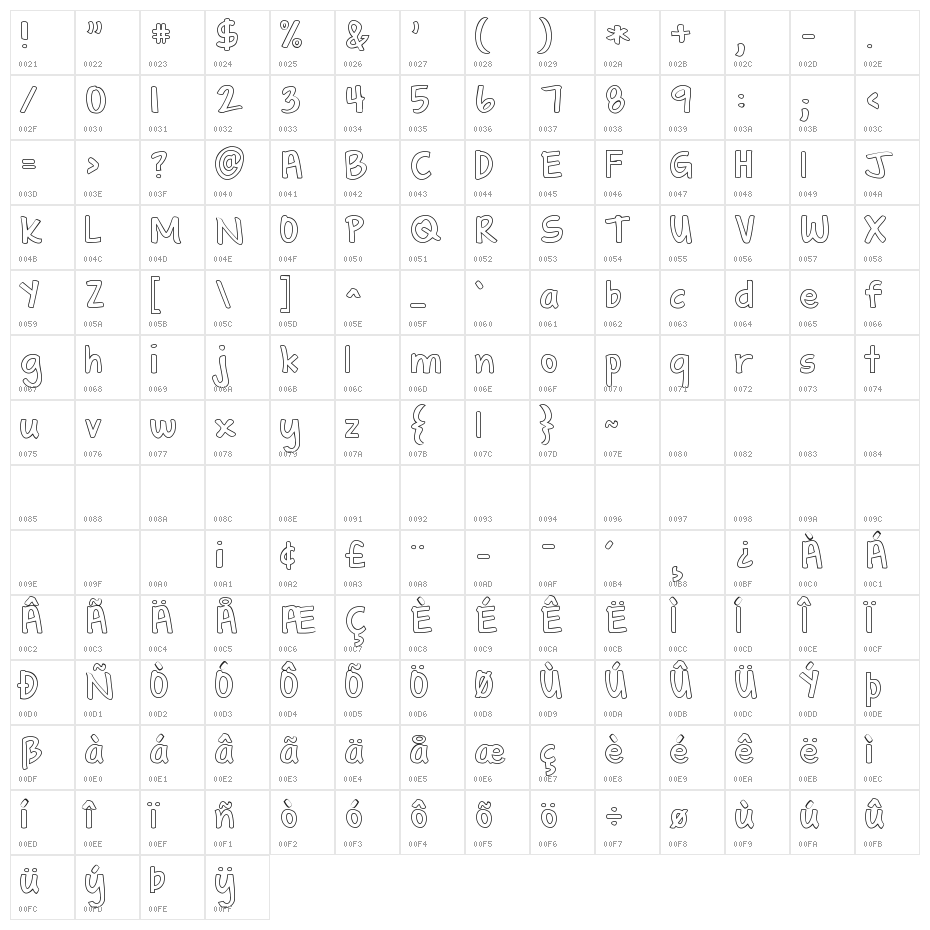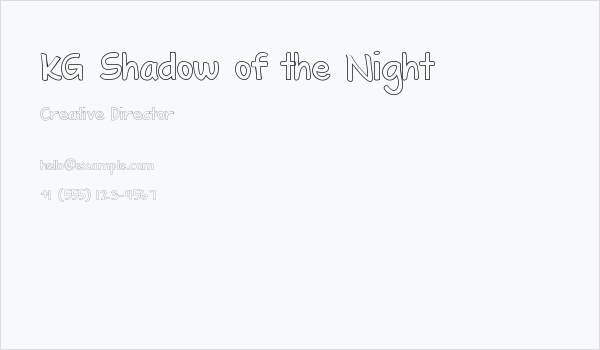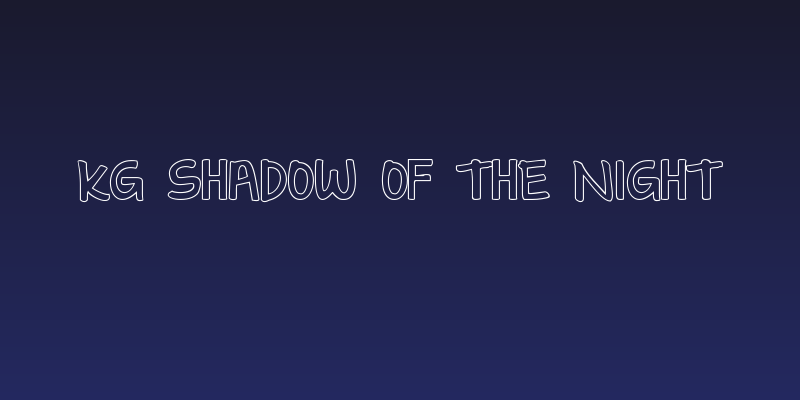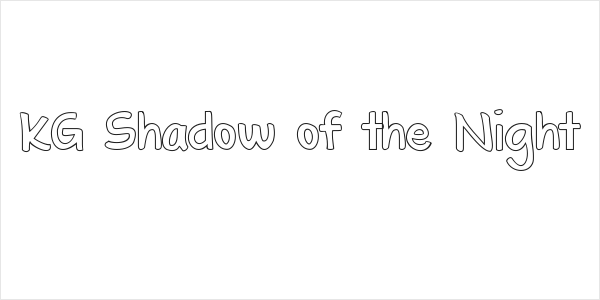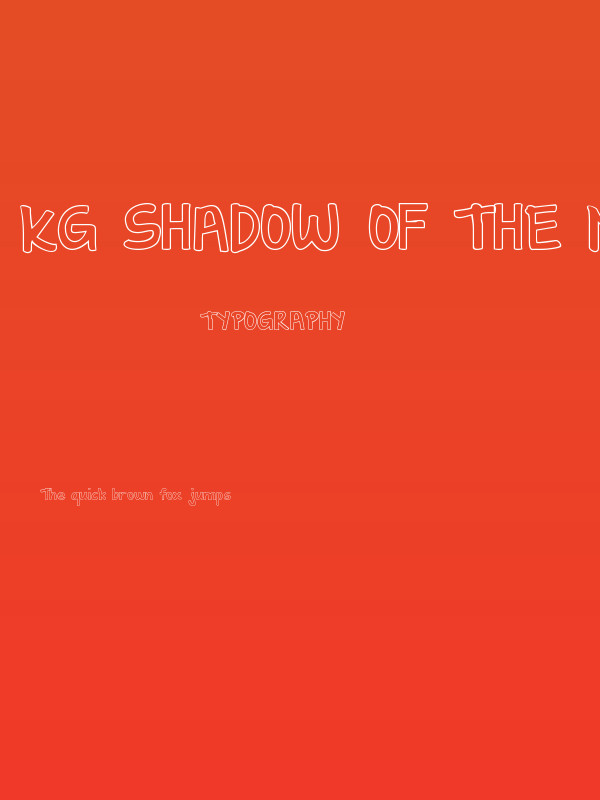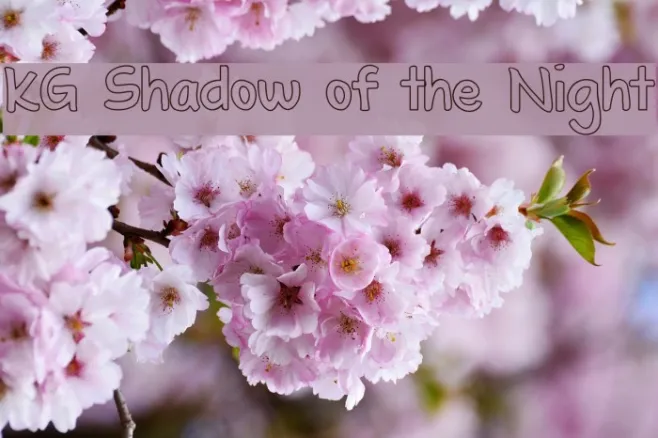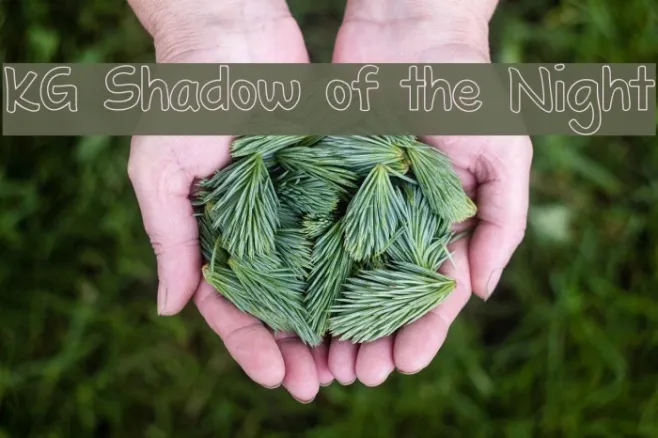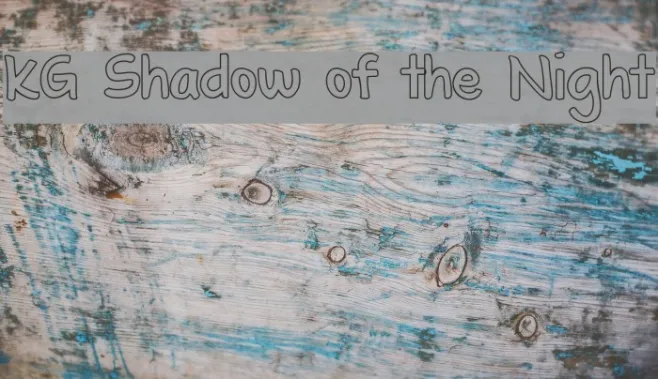
KG Shadow of the Night Font
KG Shadow of the Night Description
This playful and whimsical font features a bold, outlined style that gives each character a shadow-like appearance. The uppercase and lowercase letters are rounded and slightly irregular, adding a hand-drawn feel. The numbers and special characters maintain the same playful aesthetic, making the font suitable for creative and informal projects. Its unique style is eye-catching and adds a sense of fun and creativity to any design. The font's outline design allows for versatility in color usage, making it adaptable for various themes and moods.